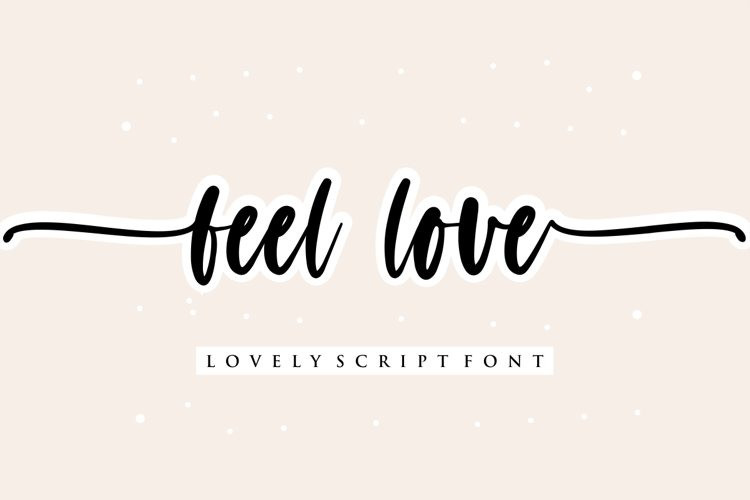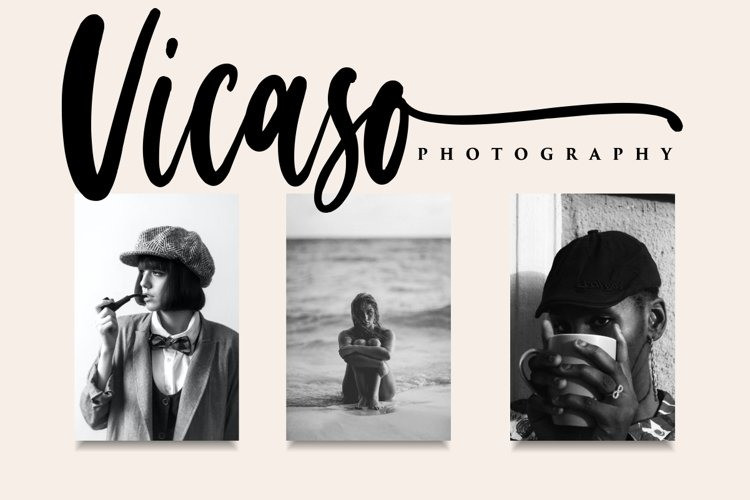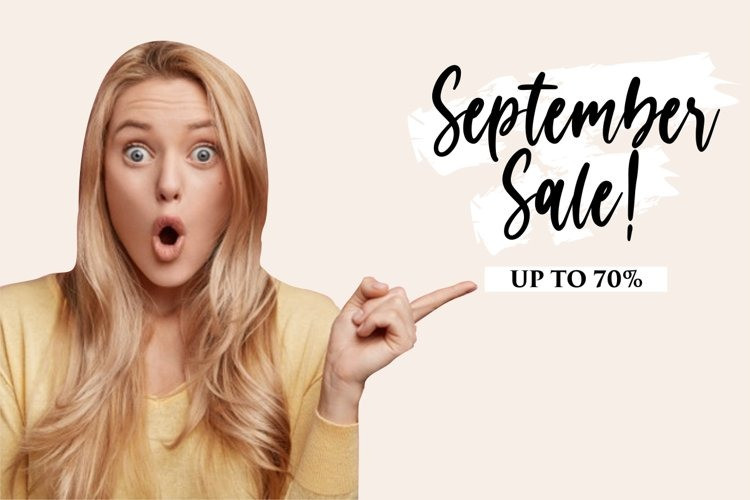
Blandis Brush Font
Blandis Font is a vintage brush font, designed by Rais Project. It is a Textured brush display font with exclusive style that is great for Horror, Movie, Game, Magazine, Music, Video, Sports, Racing etc